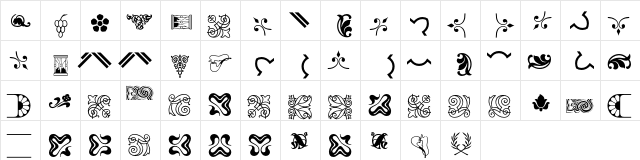
BordersOrnaments P03
Design Context for BordersOrnaments Typeface
BordersOrnaments brings ornamental detail and strong personality to headlines and identities, where visual impact matters more than quiet functionality.
Font Pairing: Pair with a clean neutral sans-serif for body copy to let BordersOrnaments's character lead without overwhelming the composition.
Pro Tip: Use BordersOrnaments exclusively at display sizes — it was designed to be seen, not read at length. Let a neutral companion handle body copy.